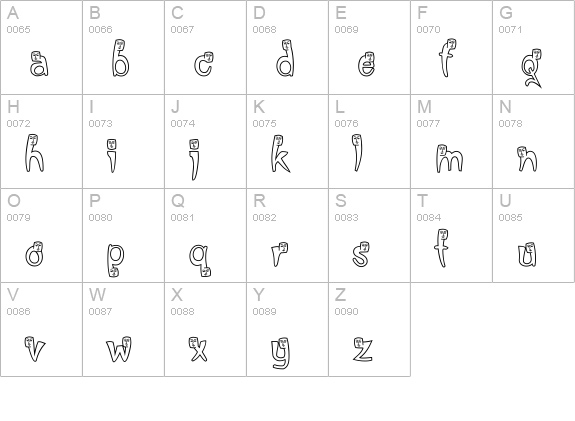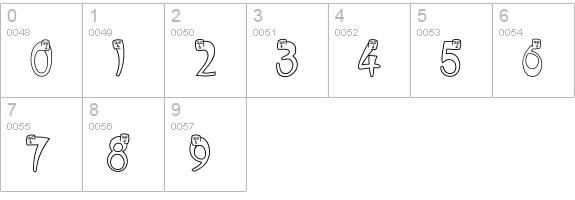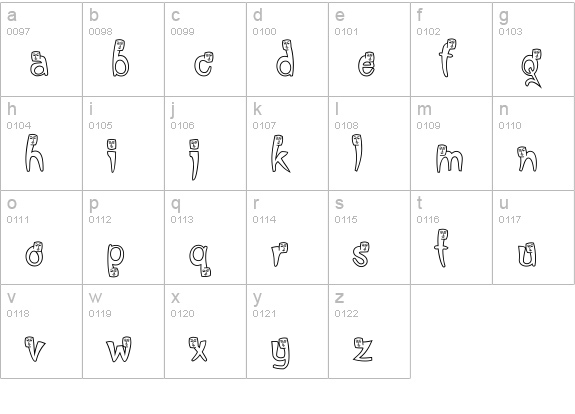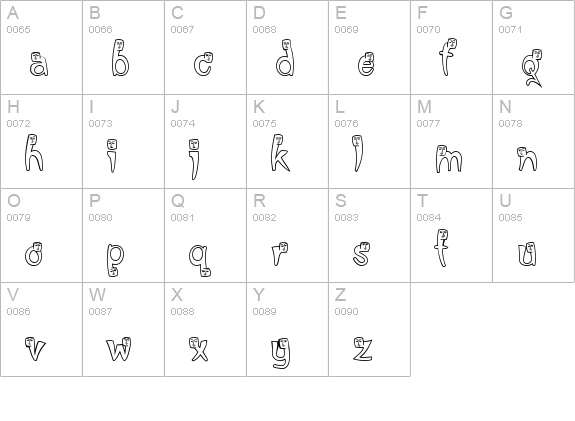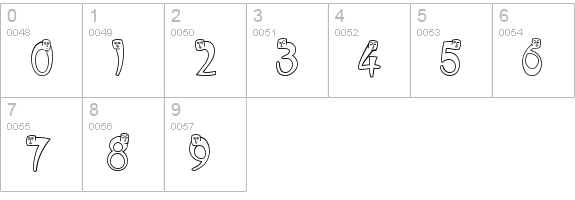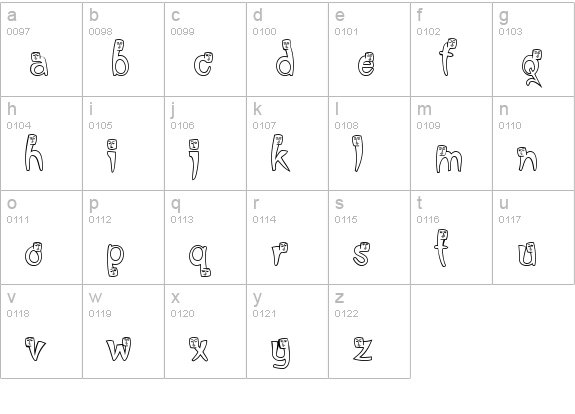
ShaziGhost Font Details
Introducing ShaziGhost font, a captivating and stylish typeface that exudes a mysterious charm. This font features a unique blend of modern and vintage elements, making it perfect for a wide range of design projects. With its elegant curves and sharp edges, ShaziGhost font adds a touch of sophistication to any text or headline. What sets ShaziGhost font apart is its versatility – whether you're designing a poster, logo, website, or any other creative project, this font is sure to make a statement. Its clean lines and intricate details make it a standout choice for both print and digital designs. Best of all, ShaziGhost font is completely free to download at FontsMarket.com. So go ahead and add this stunning font to your collection today and let your creativity shine with ShaziGhost!